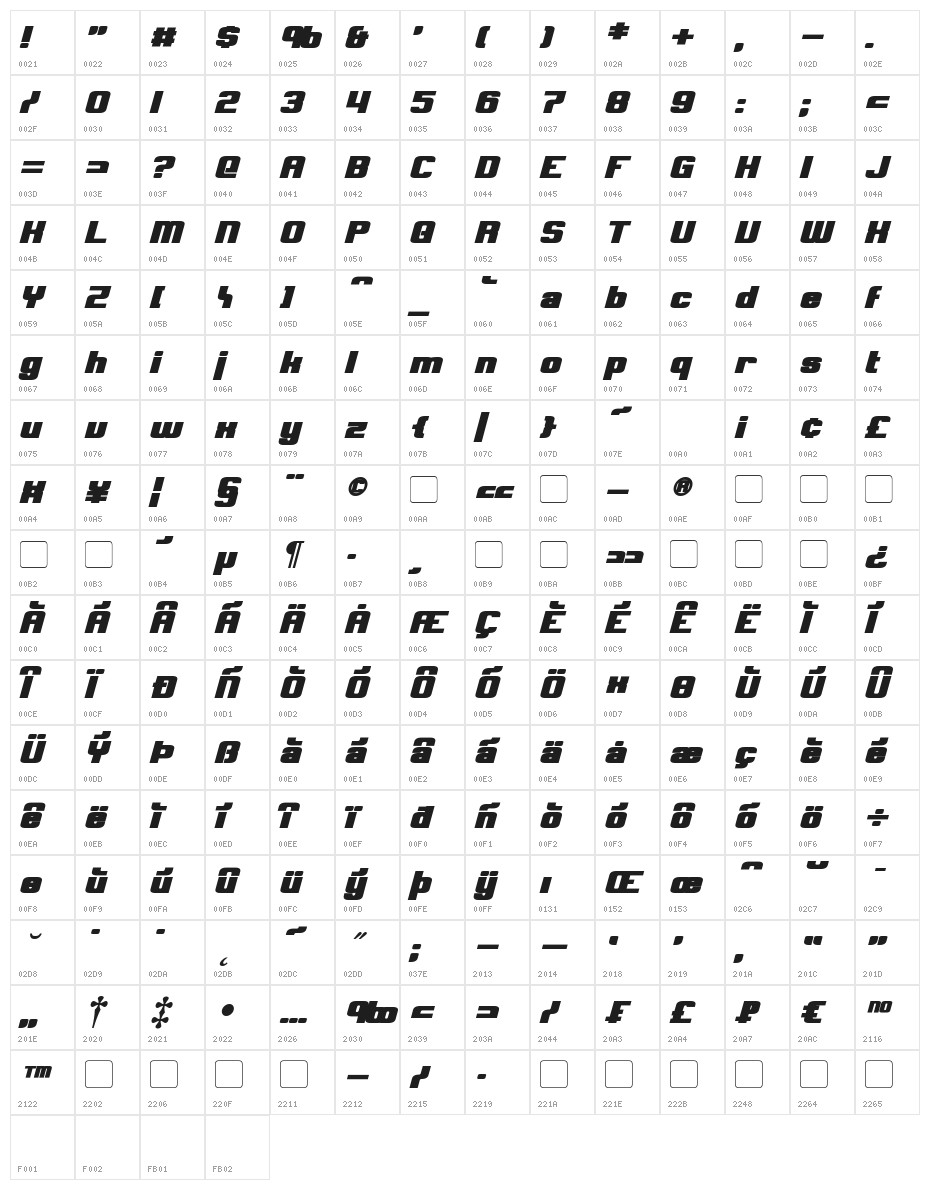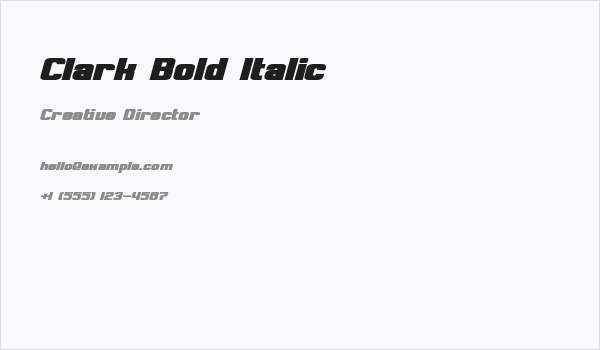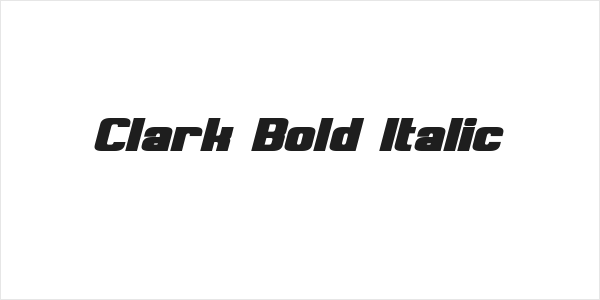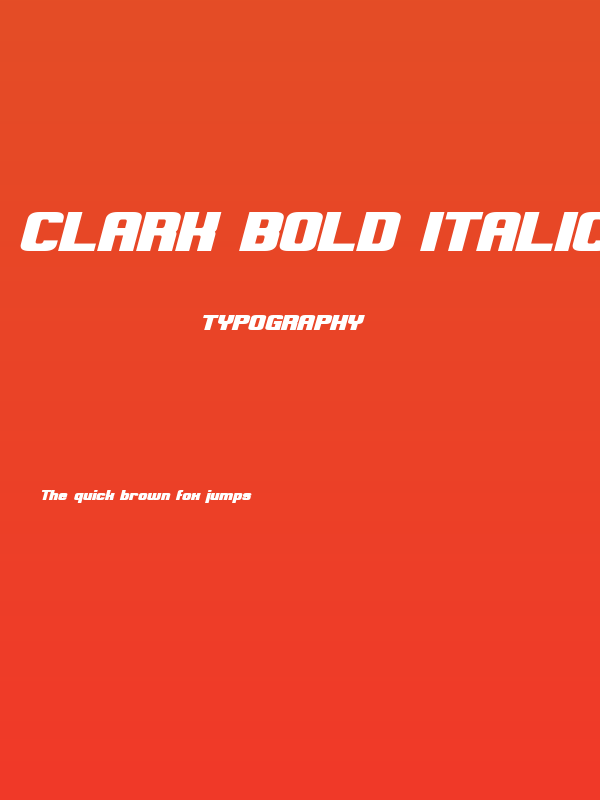
Clark Bold Italic Font
Clark Bold Italic Description
This font features a bold and italicized style with a strong, impactful presence. The characters are slightly slanted, giving a sense of motion and dynamism. The strokes are thick and consistent, providing a robust and confident appearance. The uppercase and lowercase letters maintain a uniform height, enhancing readability while retaining a modern aesthetic. The numerals and special characters are designed to match the boldness and slant of the alphabet, ensuring a cohesive look across all text elements.